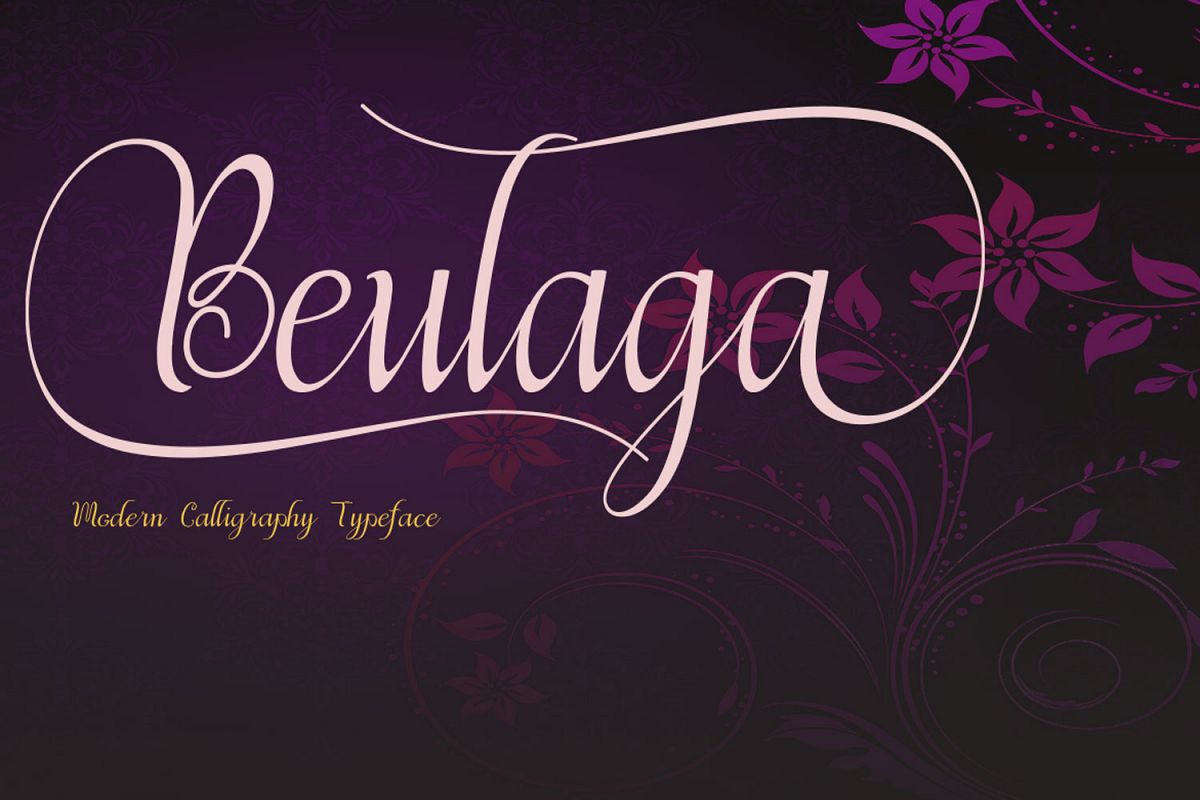
Beulaga
INTRODUCING
Beulaga Modern Calligraphy. This font was designed by handwriting, and it has a modern and unique forms of calligraphy, the writing style is very natural. Beulaga has a very unique style of calligraphy, it is very suitable for use in the work of modern design.
The Features of this fonts is:
* Standart ligatures
* Stylistic Alternates
* Swash